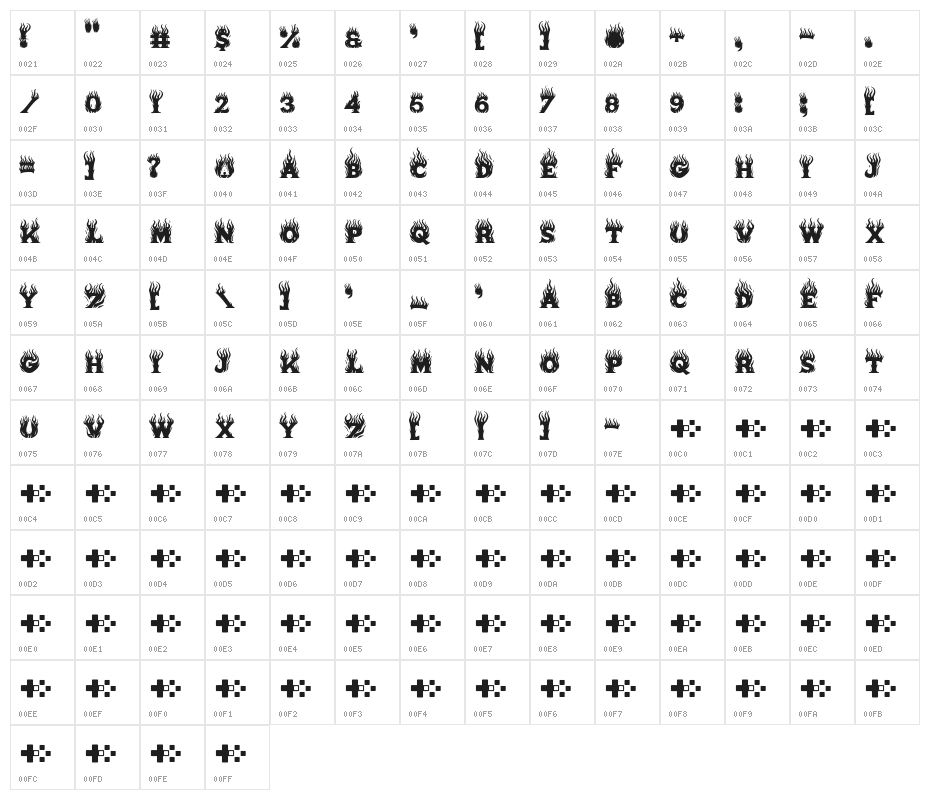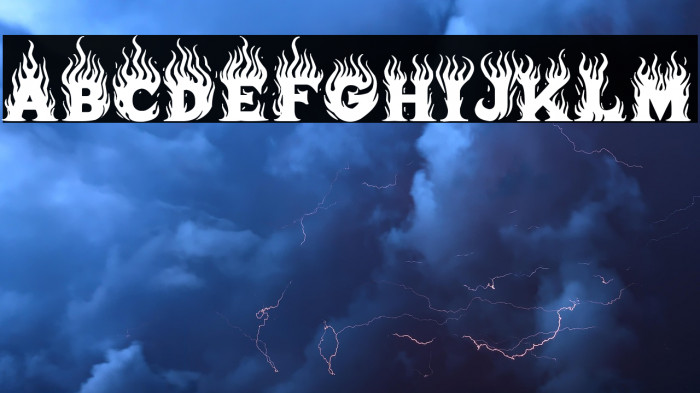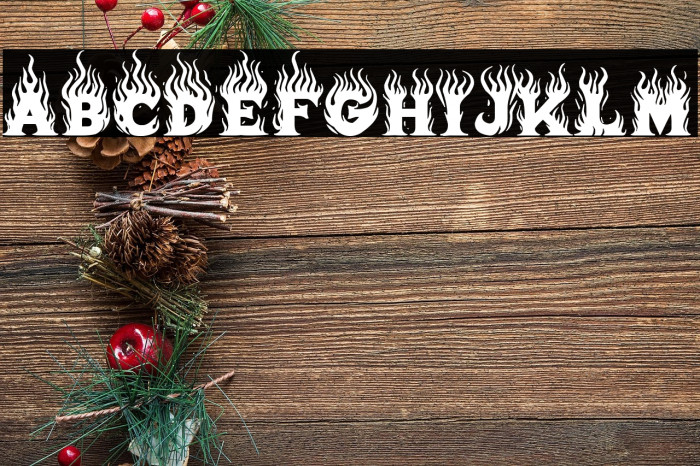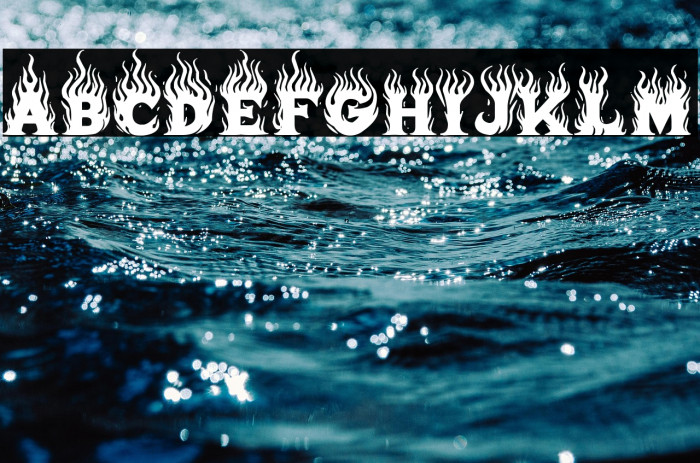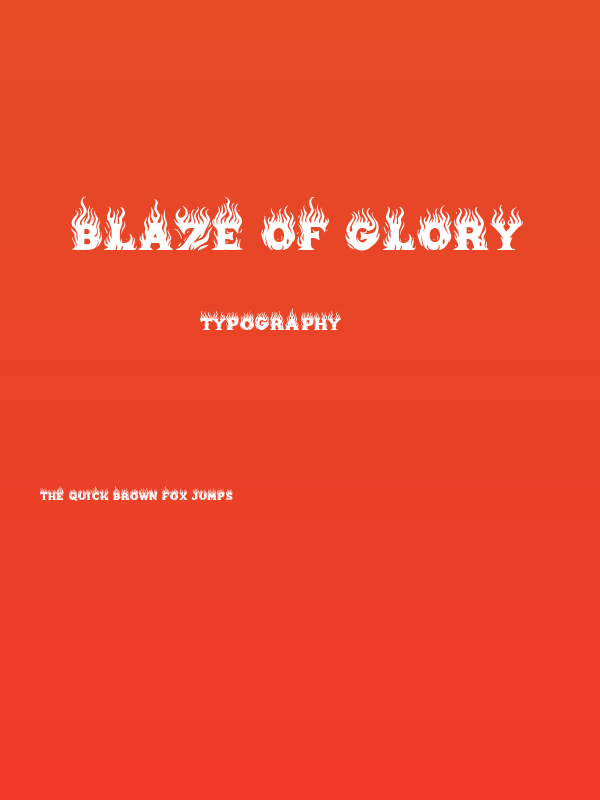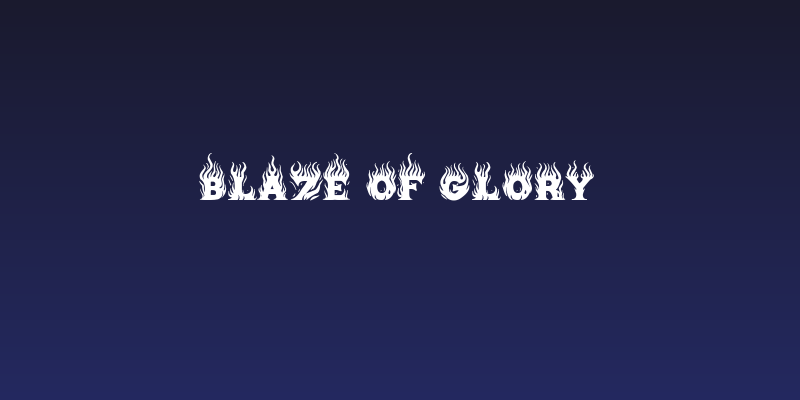
Blaze of Glory Font
Blaze of Glory Description
This font features bold, uppercase and lowercase letters with a unique flame design extending from the top of each character, creating a dynamic and fiery appearance. The numbers and special characters also carry the same flame motif, enhancing the overall theme. The design is highly decorative, making it stand out with its intense visual impact. The strokes are thick, contributing to a bold and powerful look, while the flames add a sense of movement and energy. This font is ideal for projects that require a dramatic and eye-catching style.
| Proposed Projects | Ideal for event posters, music album covers, themed party invitations, or any project needing a fiery, dramatic flair. |